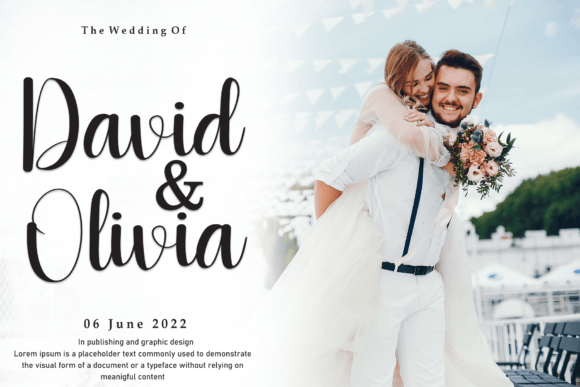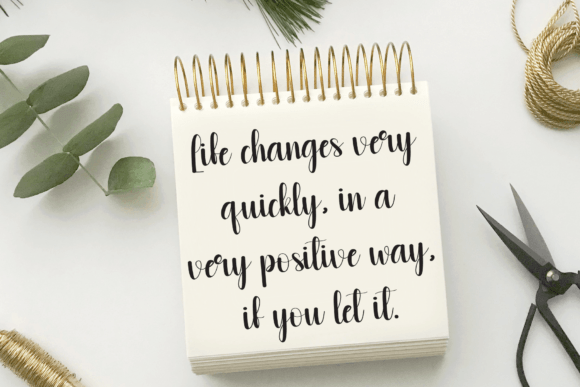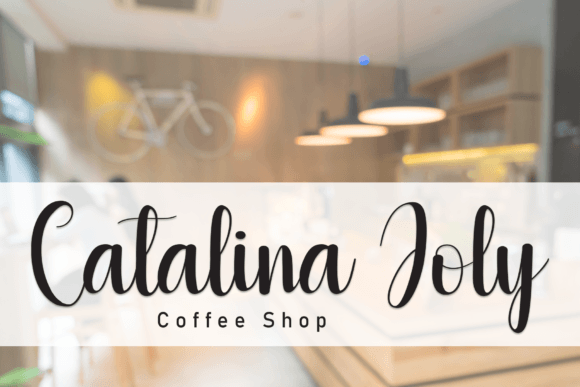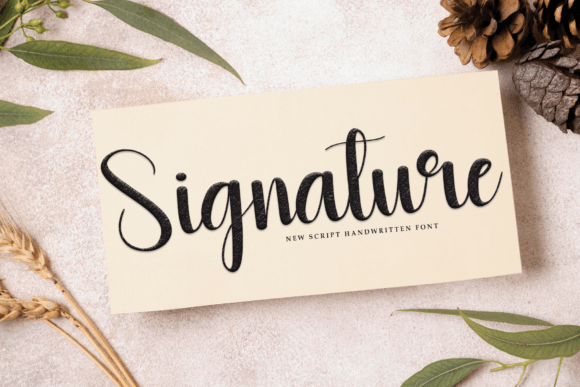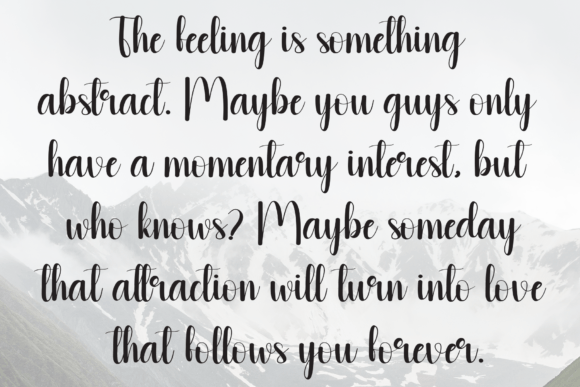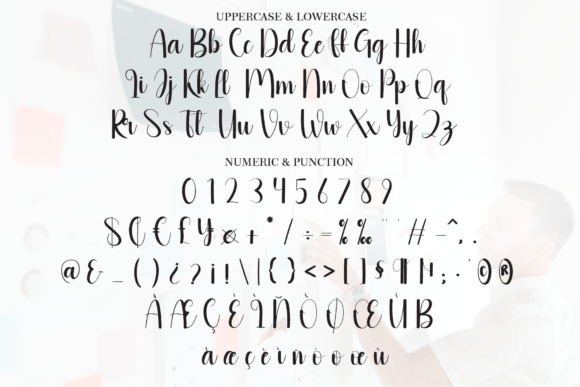
Introducing Agenda Font: The Sweet and Friendly Handwritten Display Font
Are you looking for a font that can add a touch of sweetness and friendliness to your designs? Look no further than Agenda Font! This beautiful handwritten display font is perfect for creating eye-catching wedding invitations, cards, and other designs that require a fun and playful touch.
What Makes Agenda Font So Special?
Agenda Font is a unique and charming font that is sure to capture the hearts of designers and crafters alike. Its sweet and friendly appearance makes it ideal for a wide range of design projects, from wedding invitations and cards to posters, flyers, and more.
One of the standout features of Agenda Font is its handwritten style, which gives it a personal and organic feel. The font’s letters are carefully crafted to resemble handwriting, with subtle variations in line width and spacing that create a sense of movement and fluidity.
Agenda Font is particularly well-suited for wedding invitations and cards, as its sweet and romantic appearance is sure to set the tone for a special and memorable occasion. Whether you’re designing a formal wedding invitation or a more casual save-the-date card, Agenda Font is the perfect choice.
The font’s playful and whimsical style also makes it ideal for other types of cards, such as birthday cards, get-well cards, and thank-you cards. With Agenda Font, you can add a personal touch to your designs and make them truly special.
Why Designers and Crafters Love Agenda Font
Designers and crafters love Agenda Font for many reasons. Here are just a few:
- Unique and eye-catching: Agenda Font is a one-of-a-kind font that is sure to grab attention and make your designs stand out.
- Easy to read: Despite its playful style, Agenda Font is easy to read and understand, making it perfect for designs that require a clear and concise message.
- Versatile: Agenda Font can be used for a wide range of design projects, from wedding invitations and cards to posters, flyers, and more.
- Fun and playful: Agenda Font adds a touch of fun and playfulness to any design, making it perfect for designers and crafters who want to create eye-catching and engaging designs.
Agenda Font is a sweet and friendly handwritten display font that is perfect for designers and crafters who want to add a touch of fun and playfulness to their designs. With its unique and eye-catching style, Agenda Font is sure to capture the hearts of anyone who sees it. Whether you’re designing wedding invitations, cards, or other types of designs, Agenda Font is the perfect choice.